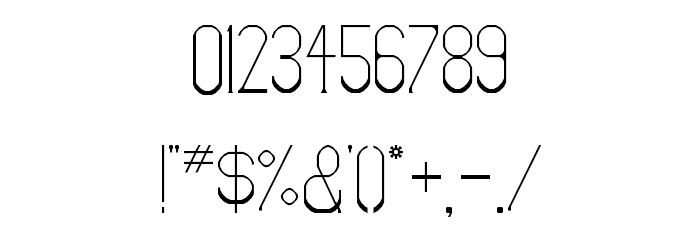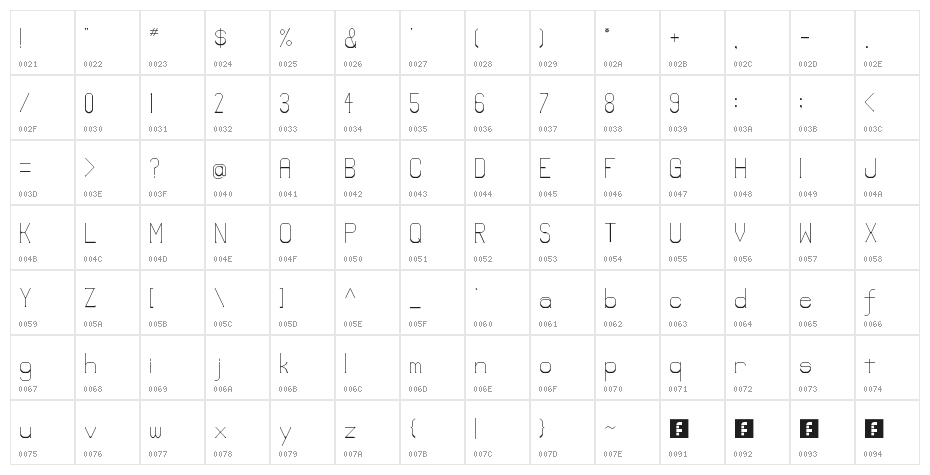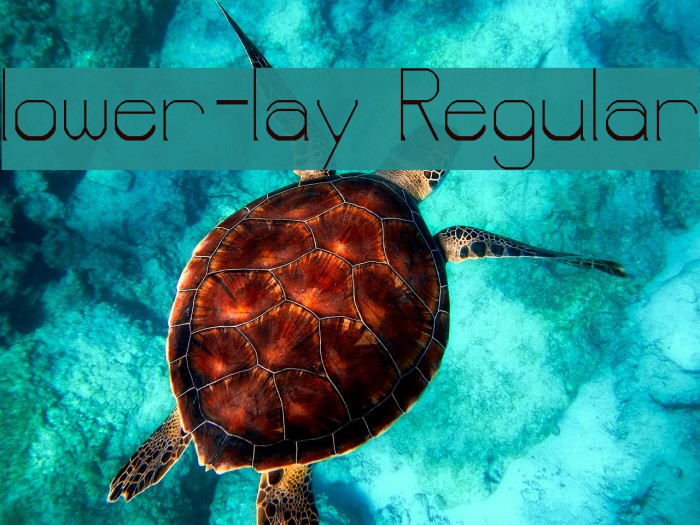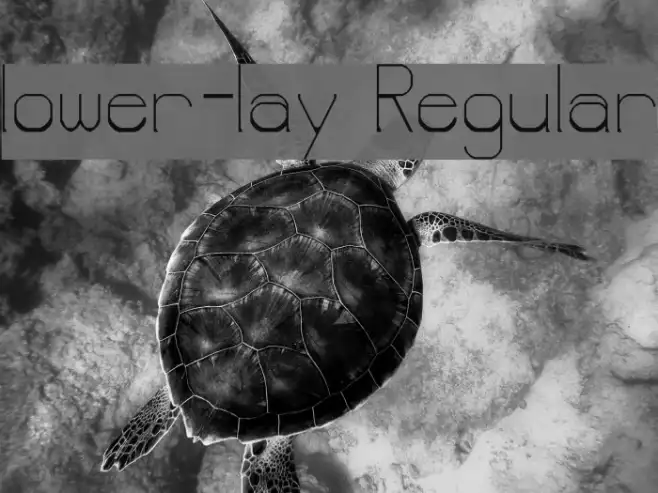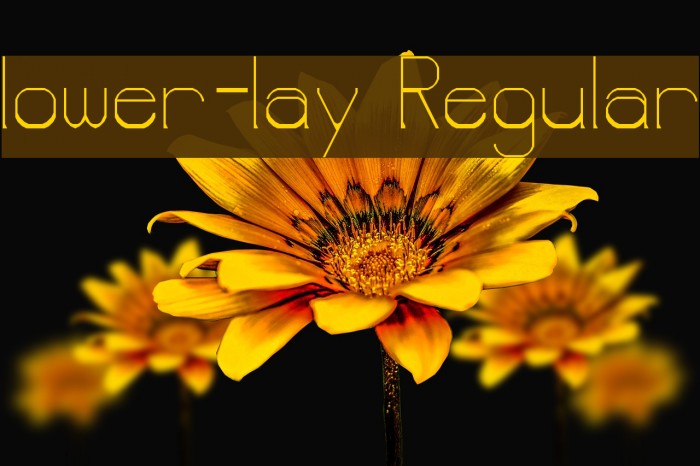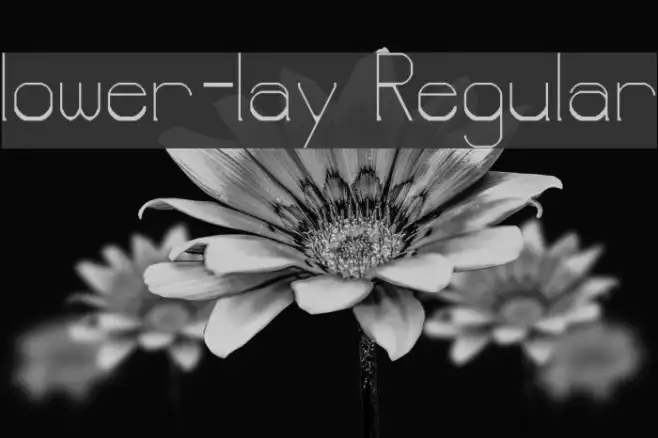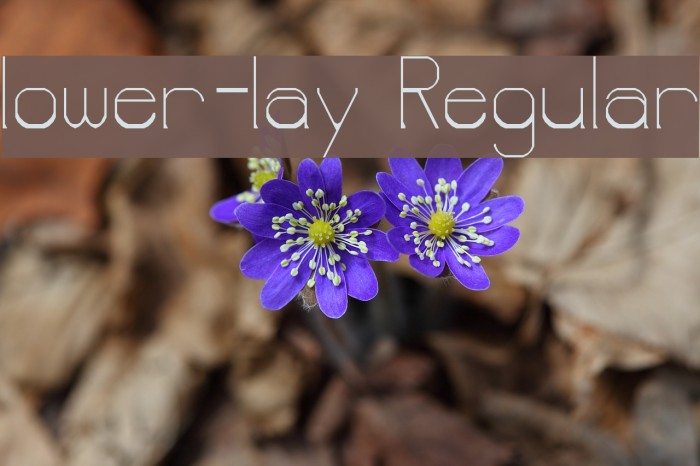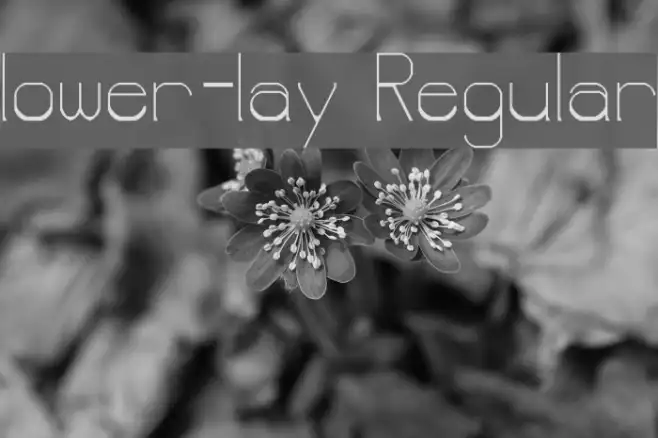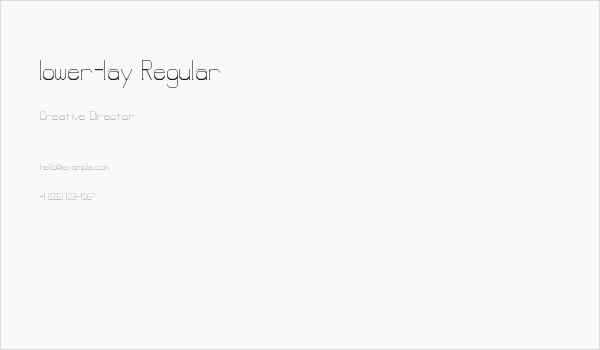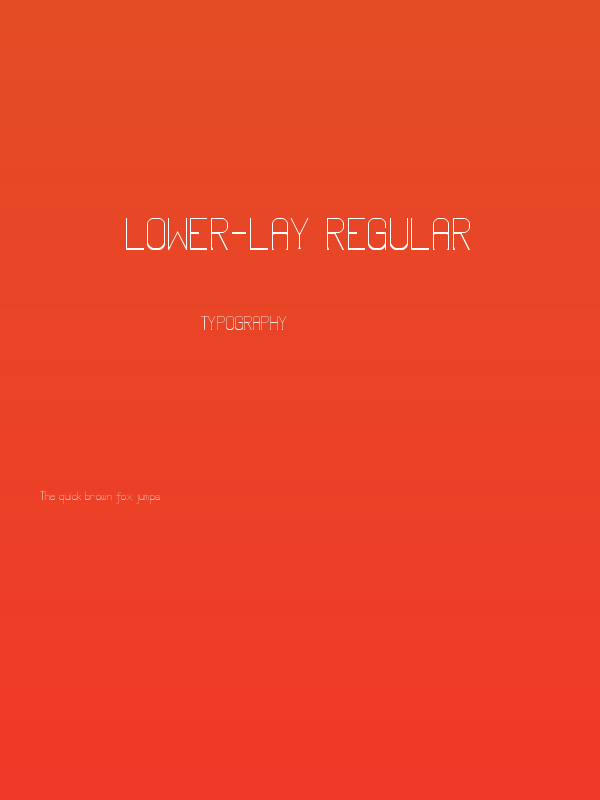
lower-lay Regular Font
lower-lay Regular Description
This font features a modern, geometric design with a minimalist aesthetic. The characters are constructed with clean, straight lines and sharp angles, giving it a futuristic and technical appearance. The uppercase and lowercase letters maintain a consistent height, contributing to a uniform look. The numerals and special characters follow the same design principles, ensuring cohesion across all elements. The font's thin strokes and open counters enhance its readability, making it suitable for various design applications where a sleek and contemporary style is desired.
| Proposed Projects | Ideal for tech branding, modern posters, digital interfaces, and minimalist design projects. |